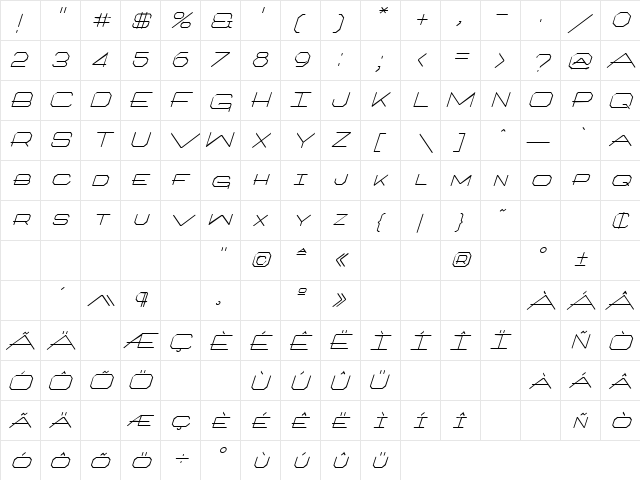
Artlookin Italic
Design Context for Artlookin Typeface
Artlookin is a composed and adaptable typeface that performs quietly and consistently across a wide range of design contexts. The dynamic lean of this cut emphasises speed and emphasis in any layout.
Pro Tip: Use Artlookin for emphasis, pull quotes, and subheadings where its slanted energy can add rhythm to the layout.